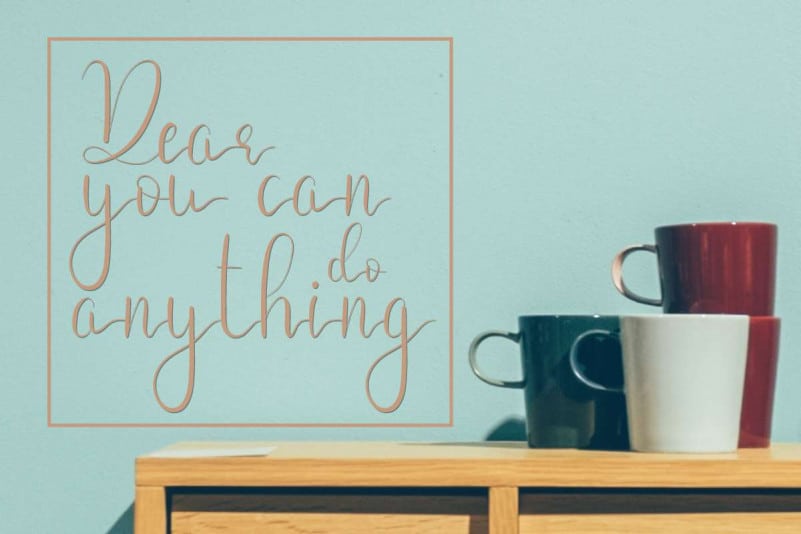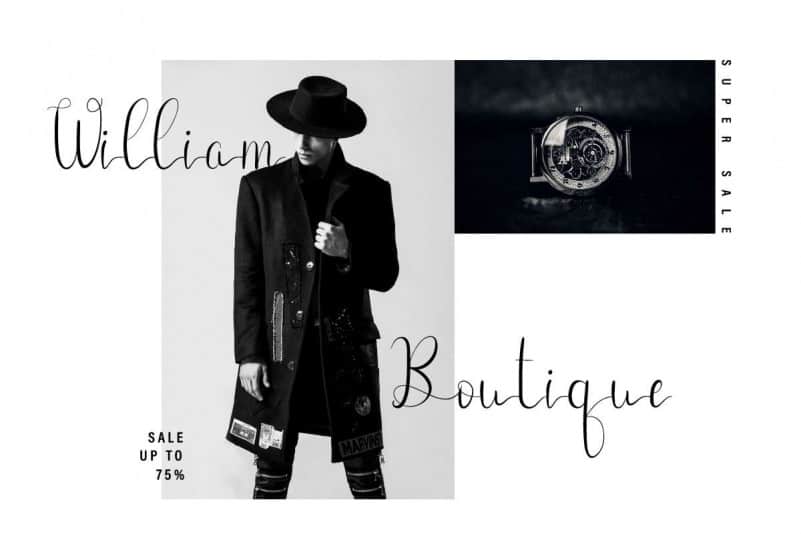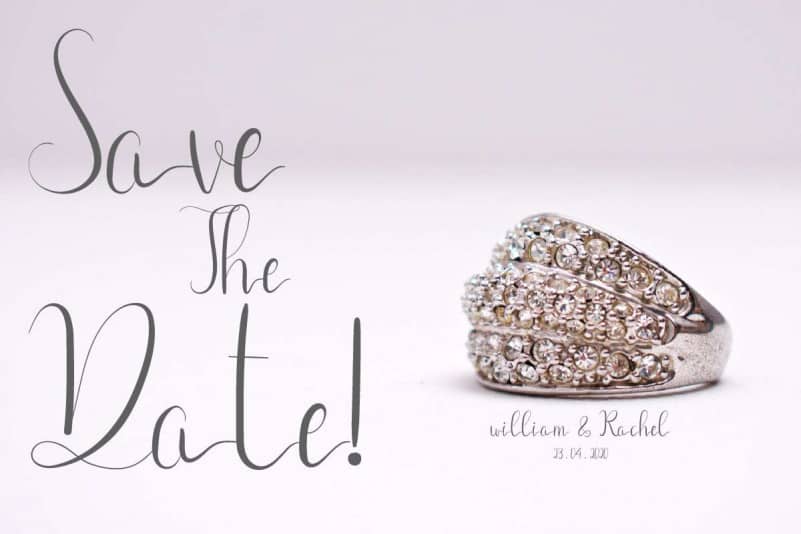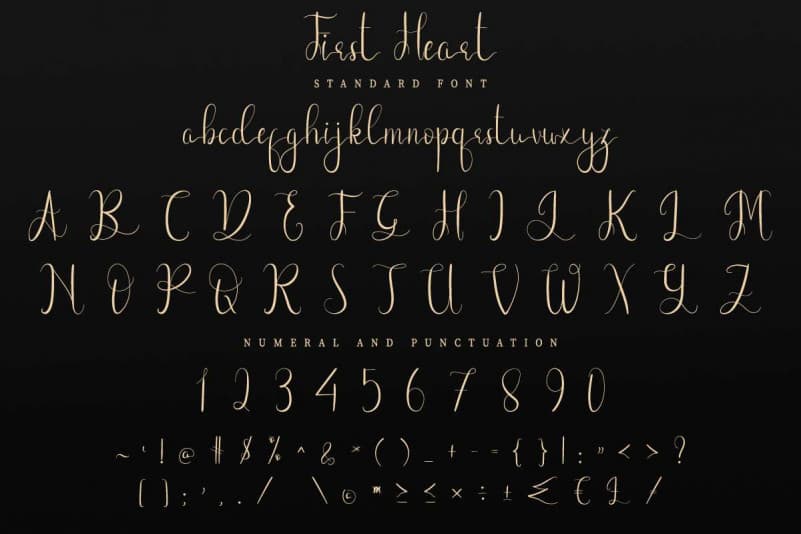
First Heart Calligraphy Font
First Heart Calligraphy Font is an exclusive characters set, perfectly managed with well spaced and kerning. The theme style of this font will elegant, vintage, stylish, sophisticated and classic brush calligraphic style.
First Heart Calligraphy Font will be great for any projects including : branding, logo, stationery, business card, signage, flyer, brochure etc. Almost all industries will be match for this typeface: wedding, events, real estate, architect, law firm, florist, gardening, makeup artist, travel, hotel, musician etc